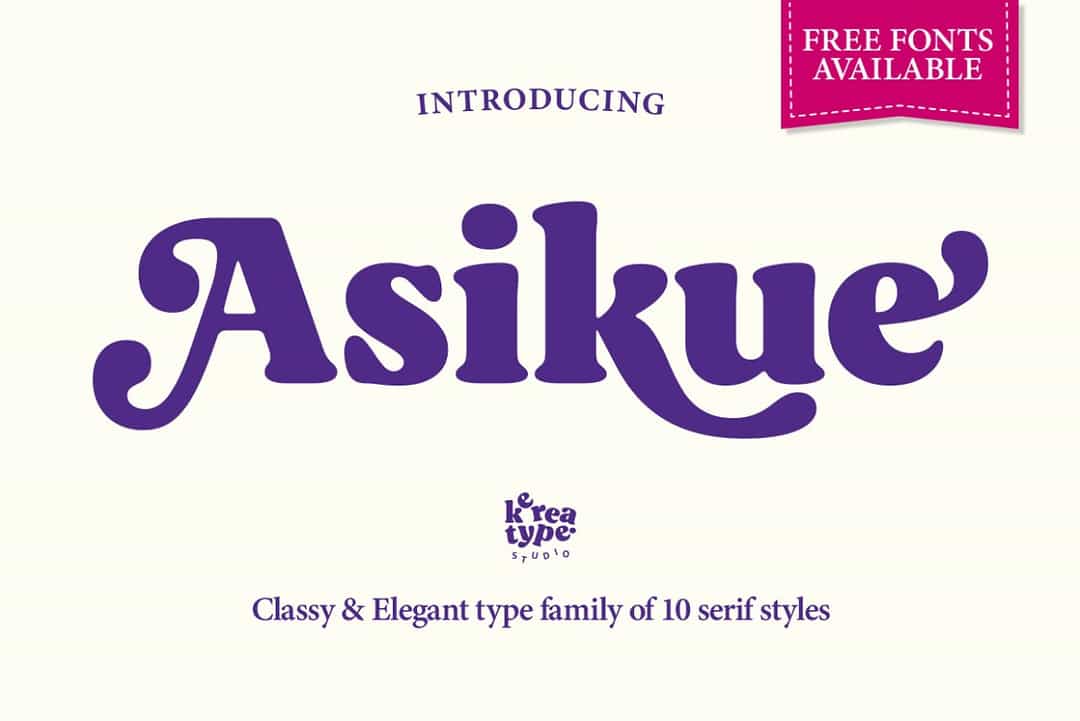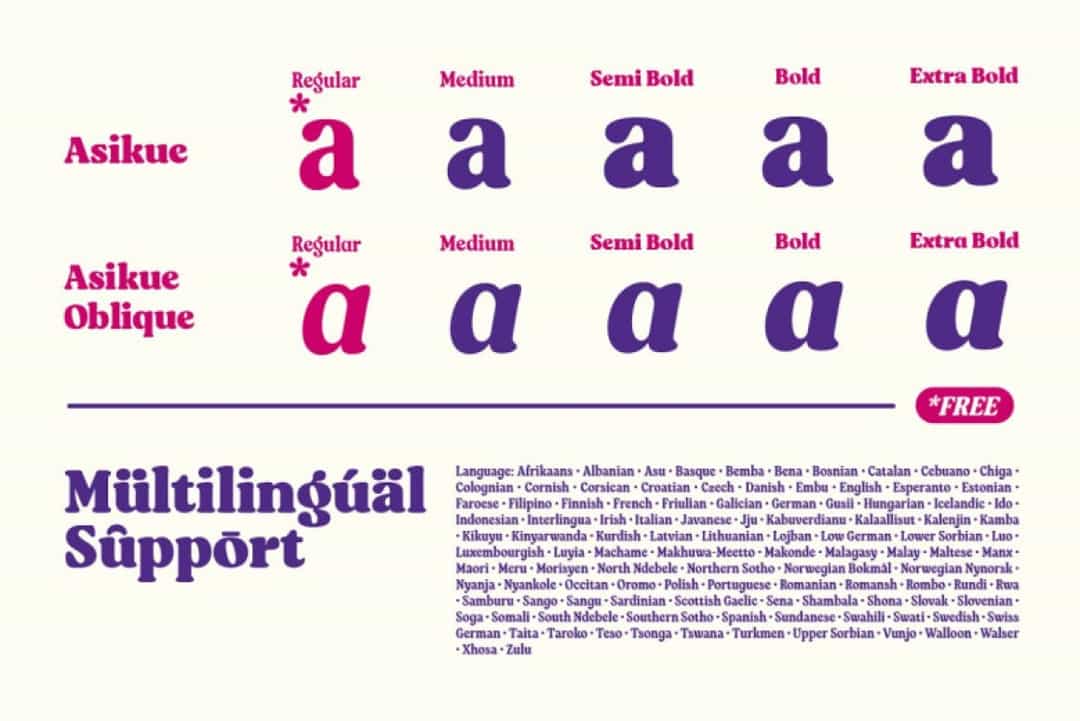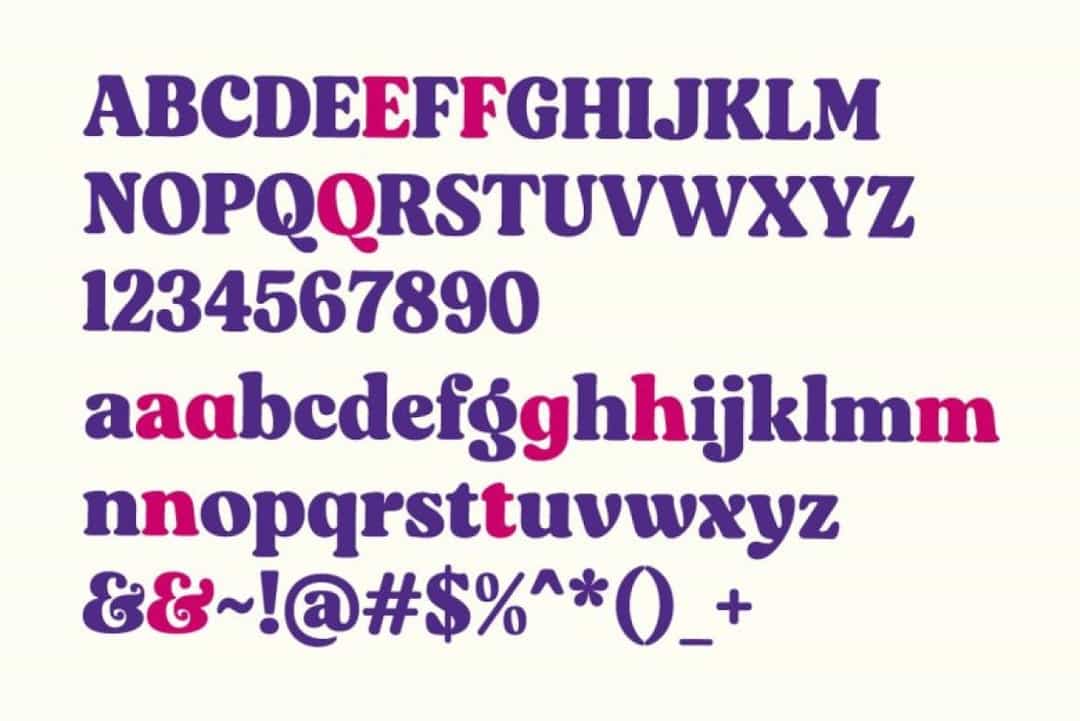
Asikue is an elegant font family inspired by 70’s retro styling that brings large retro typography back into today’s environment. Comprised of 10 styles ranging from Regular up to Extra Bold with matching Oblique styles for each, Asikue offers retro flair in contemporary typography.